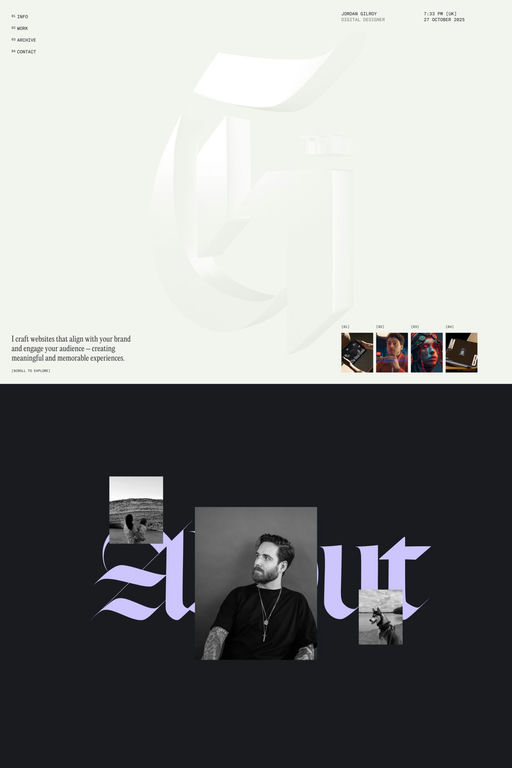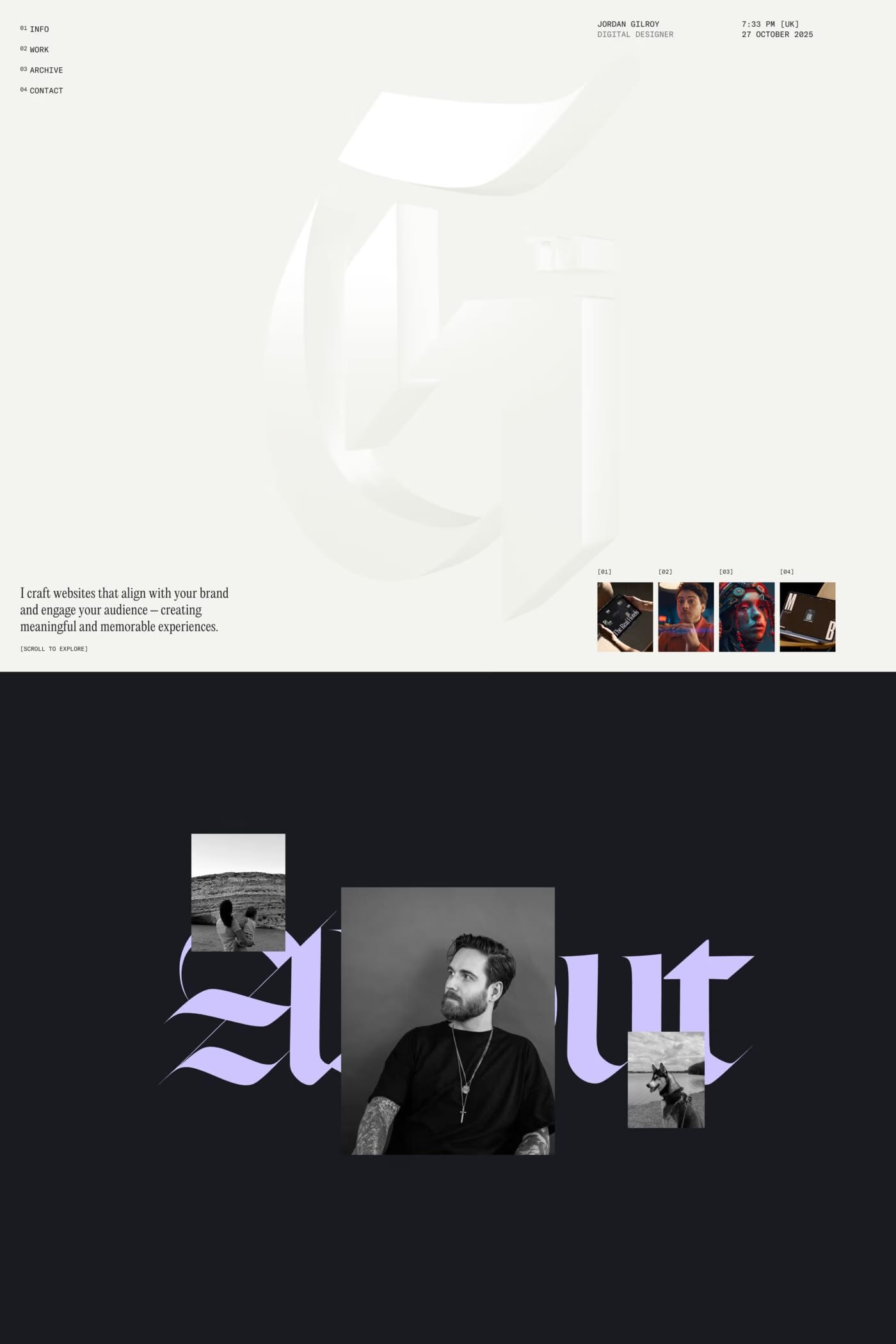
Respira is a serif typeface from Sharp.
Respira is a contemporary blackletter with all the requisite flair and drama condensed into clean, minimal strokes. Its design was primarily inspired by a style of Spanish blackletter often found in illuminated manuscripts of Andalusia.